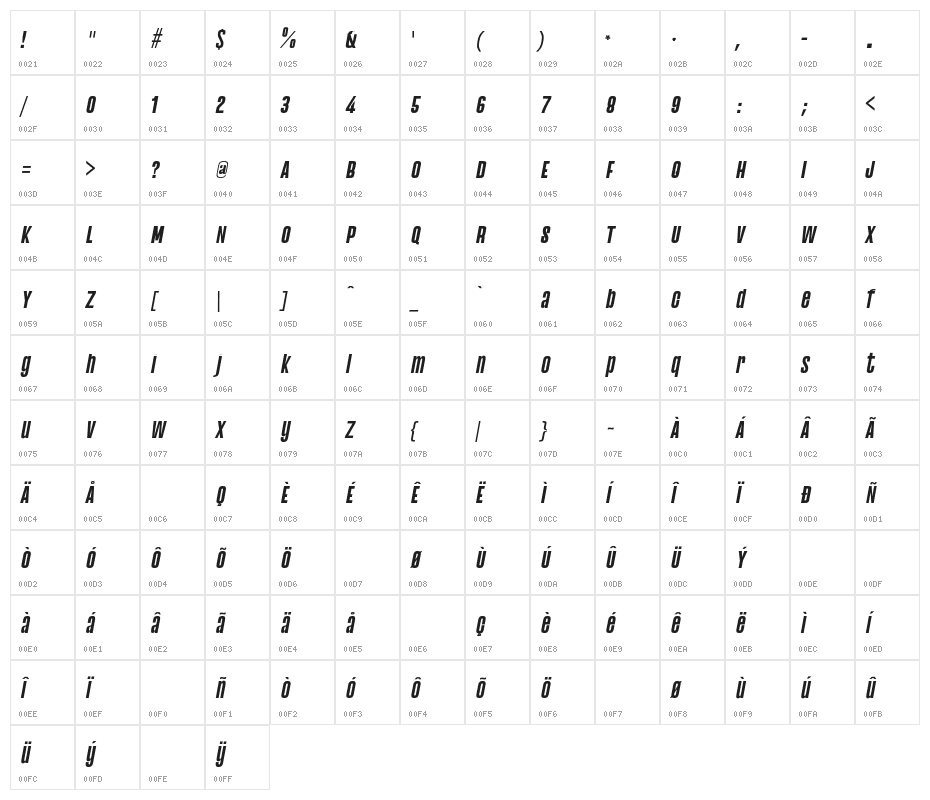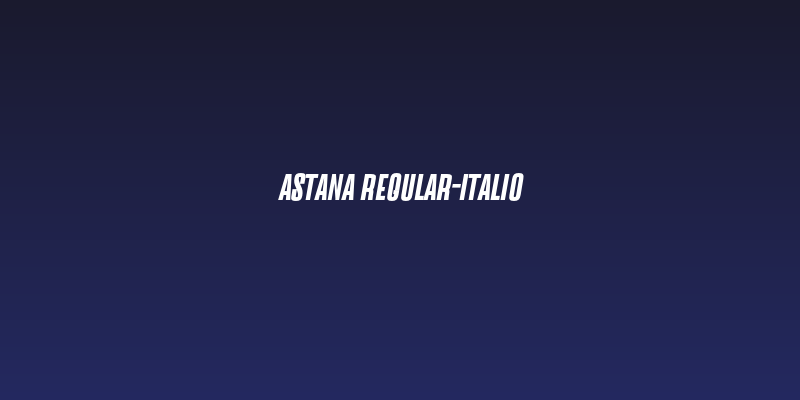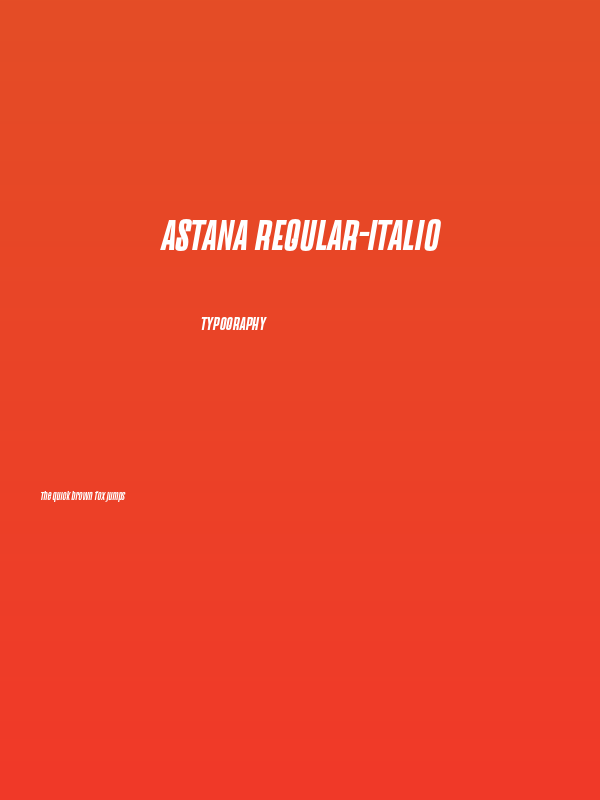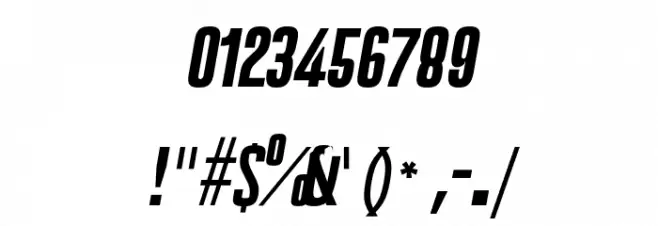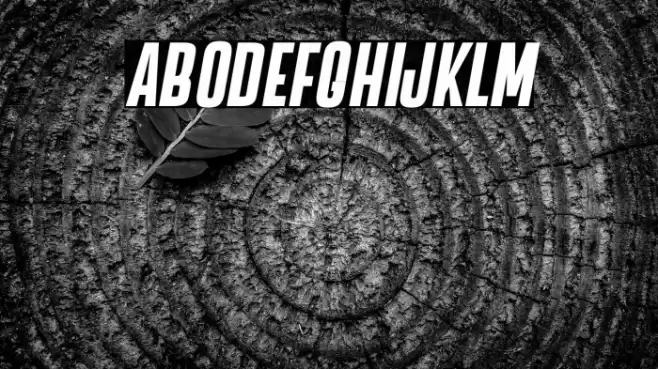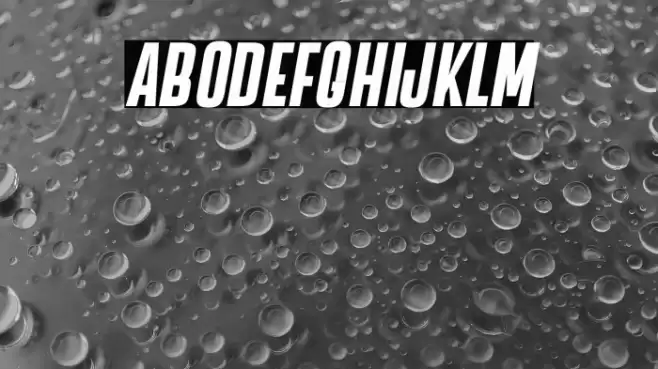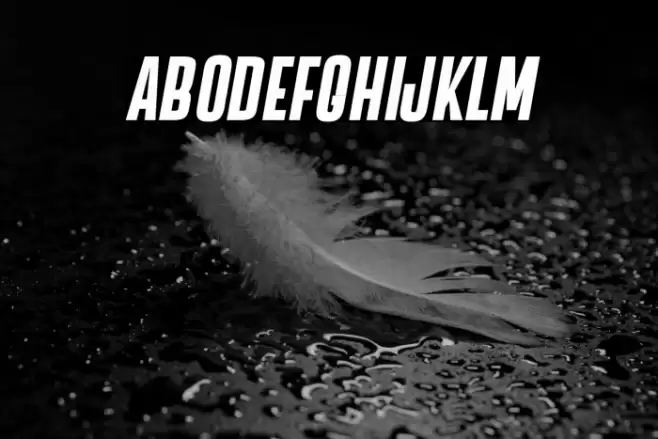
Astana regular-italic Font
This font features a bold and dynamic style with a distinct italic slant, giving it a sense of movement and energy. The characters are well-defined with a modern aesthetic, characterized by clean lines and a slightly condensed form. The uppercase letters are strong and impactful, while the lowercase letters maintain readability with a consistent stroke width. The numerals are clear and balanced, complementing the overall design. Special characters are included, maintaining the font's cohesive look. This typeface is suitable for projects that require a bold statement with a modern twist.
| Proposed Projects | Ideal for branding, advertising, headlines, and posters where a strong, modern impression is desired. |